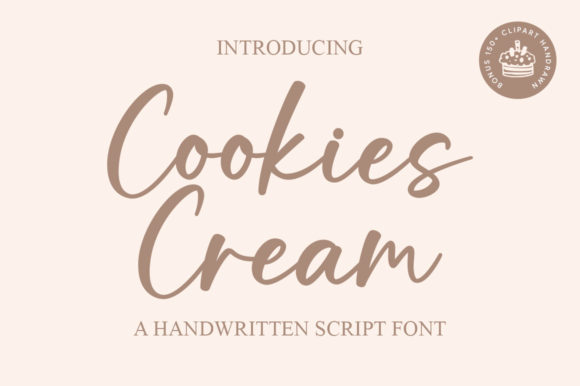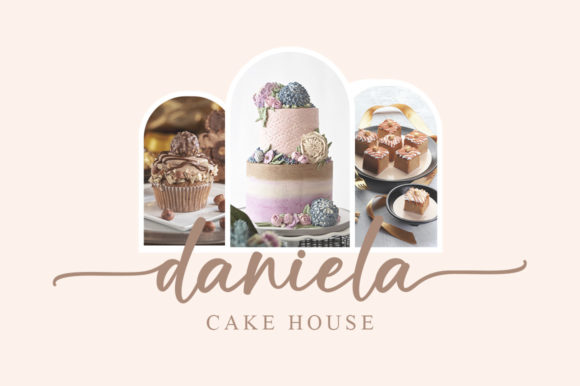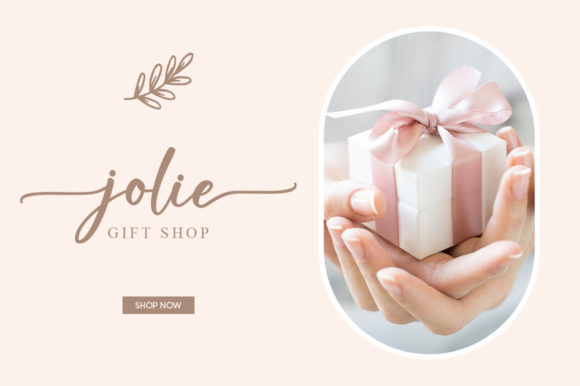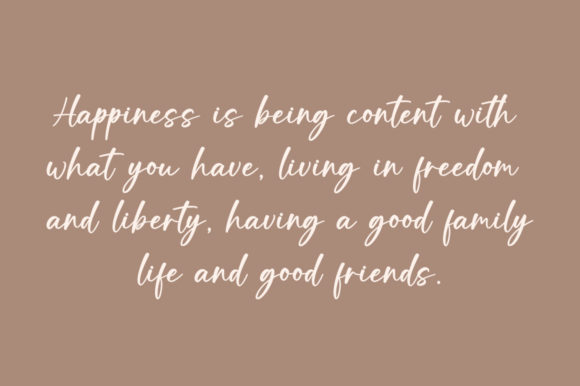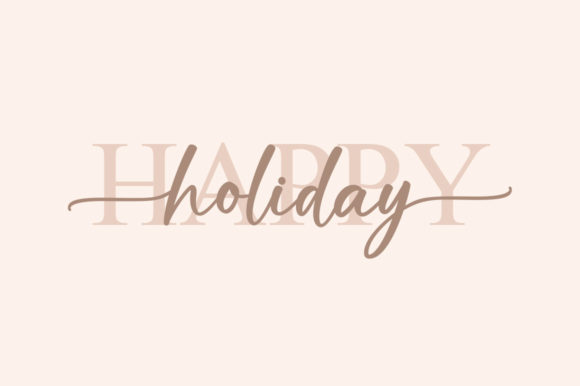
About Cookies Cream Font
Cookies Cream is a stylish and incredibly elegant script font. It looks lovely on wedding invitations, thank you cards, quotes, greeting cards, logos, business cards and more. This font is PUA encoded which means you can access all of the glyphs and swashes with ease!Â